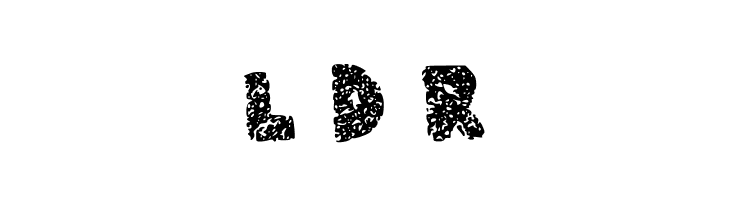
A jagged, eerie font perfect for horror themes.
A bold, jagged font with an edgy, chaotic design ideal for dramatic themes.
A bold, distressed font with a rugged, hand-drawn texture.
A bold, jagged font with distressed, edgy characters.
A jagged, eerie font ideal for horror-themed projects.
A jagged, horror-themed font with sharp, irregular edges.
A jagged, horror-themed font with a hand-drawn, distressed appearance.
A bold, jagged font with a dynamic and aggressive style.
A bold, edgy font with sharp, angular edges and a distressed, dynamic appearance.
A bold, jagged font with a raw, edgy aesthetic and irregular strokes.